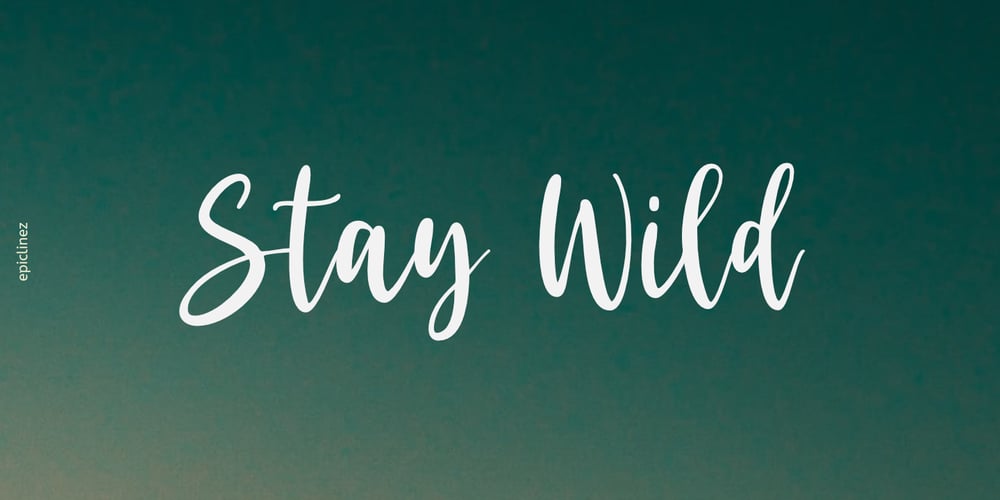
Stay Wild Font Family was designed by Aldy Sidik and published by Epiclinez. Stay Wild contains 1 styles and family package options. Stay Wild is a stylish script font. This smooth handwritten script font can be use for any design projects that require a charming appearance.